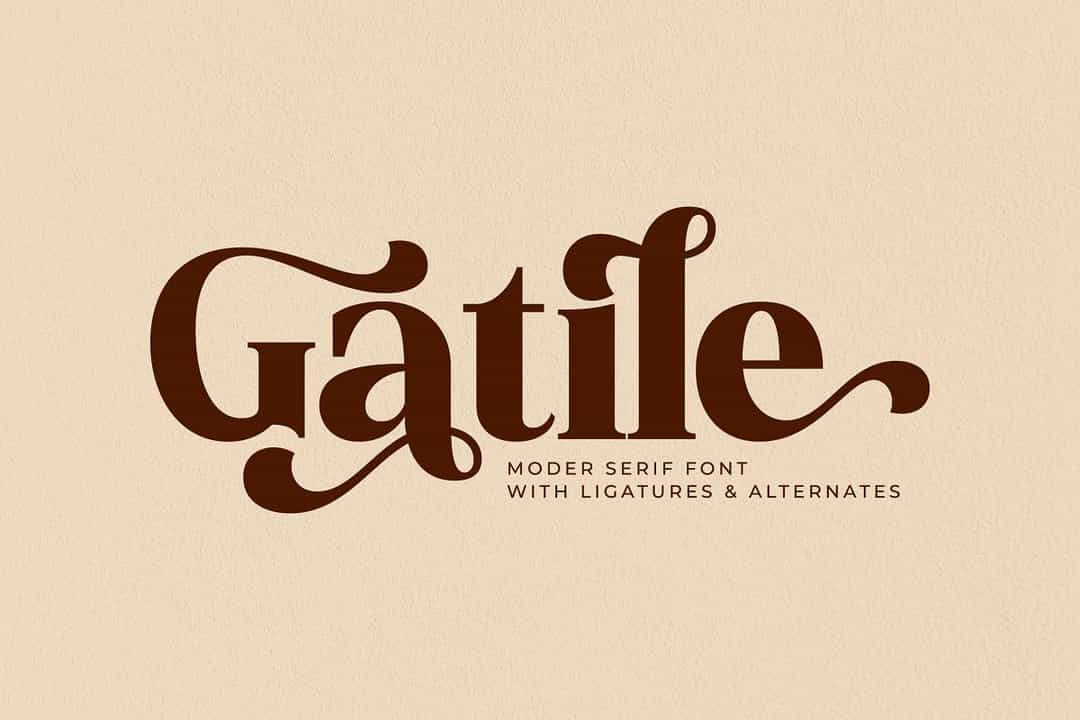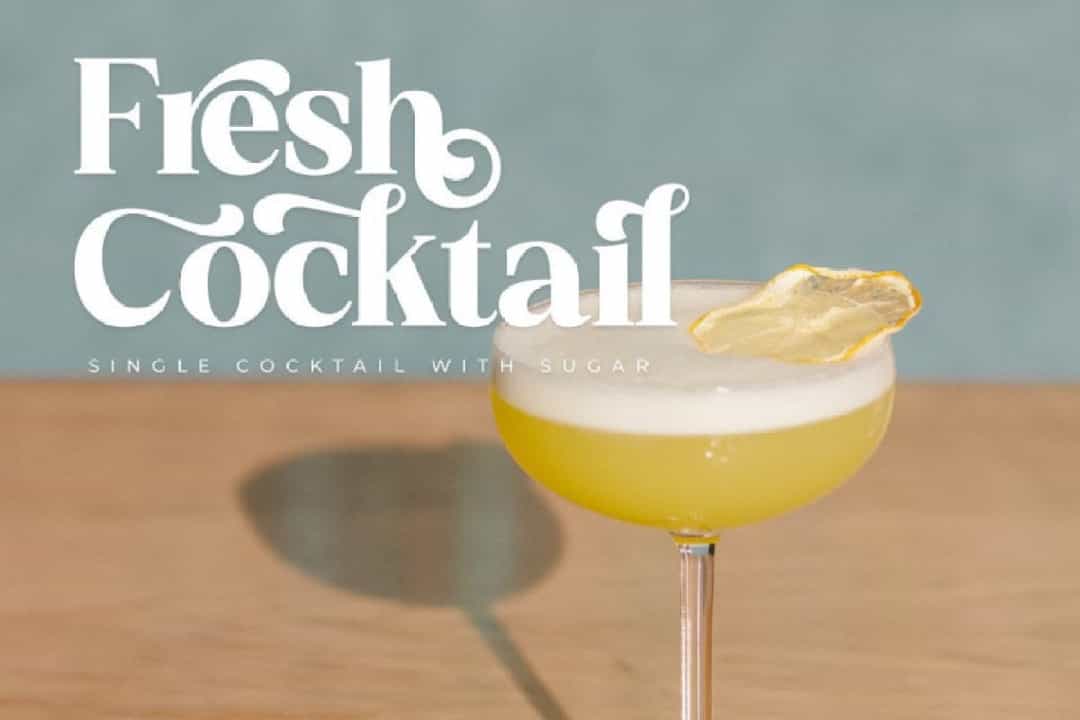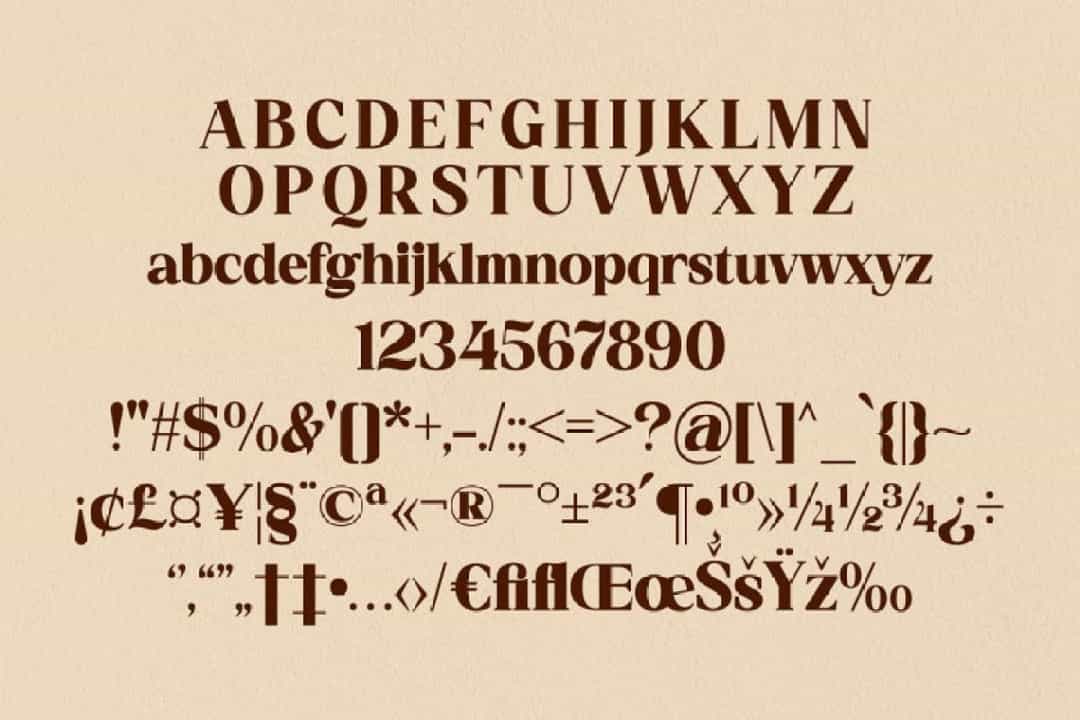
Gatile is an elegant serif typeface with an eye-catching yet classic design, creating an alluring yet ominous aura. Perfect for sophisticated logos and luxurious logos as well as movie or book titles, fashion brand clothing lines, magazines letters quotes etc.